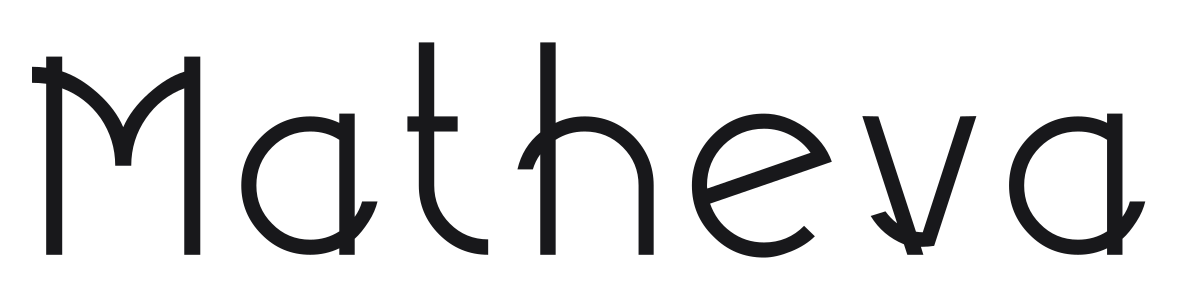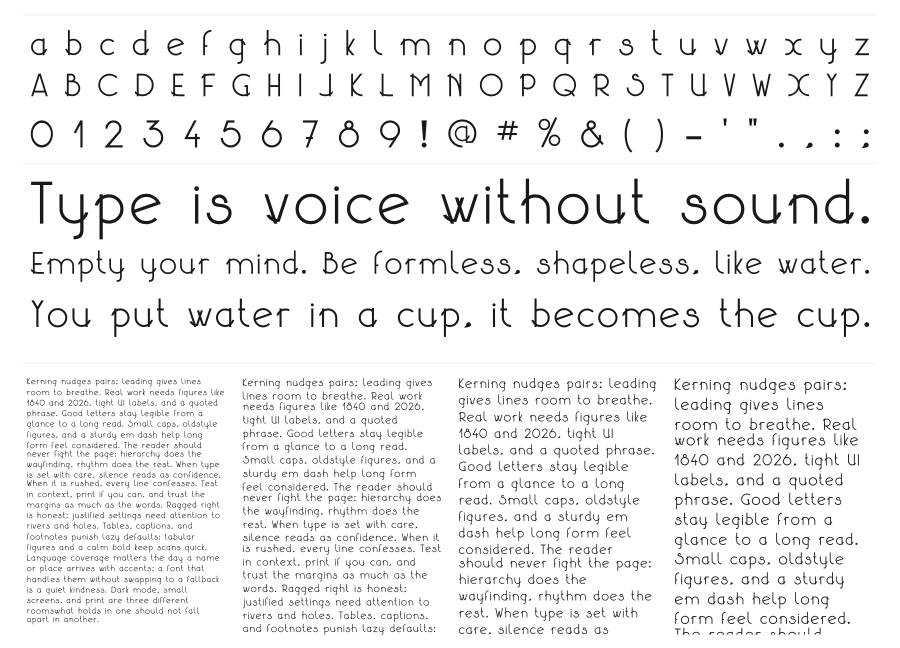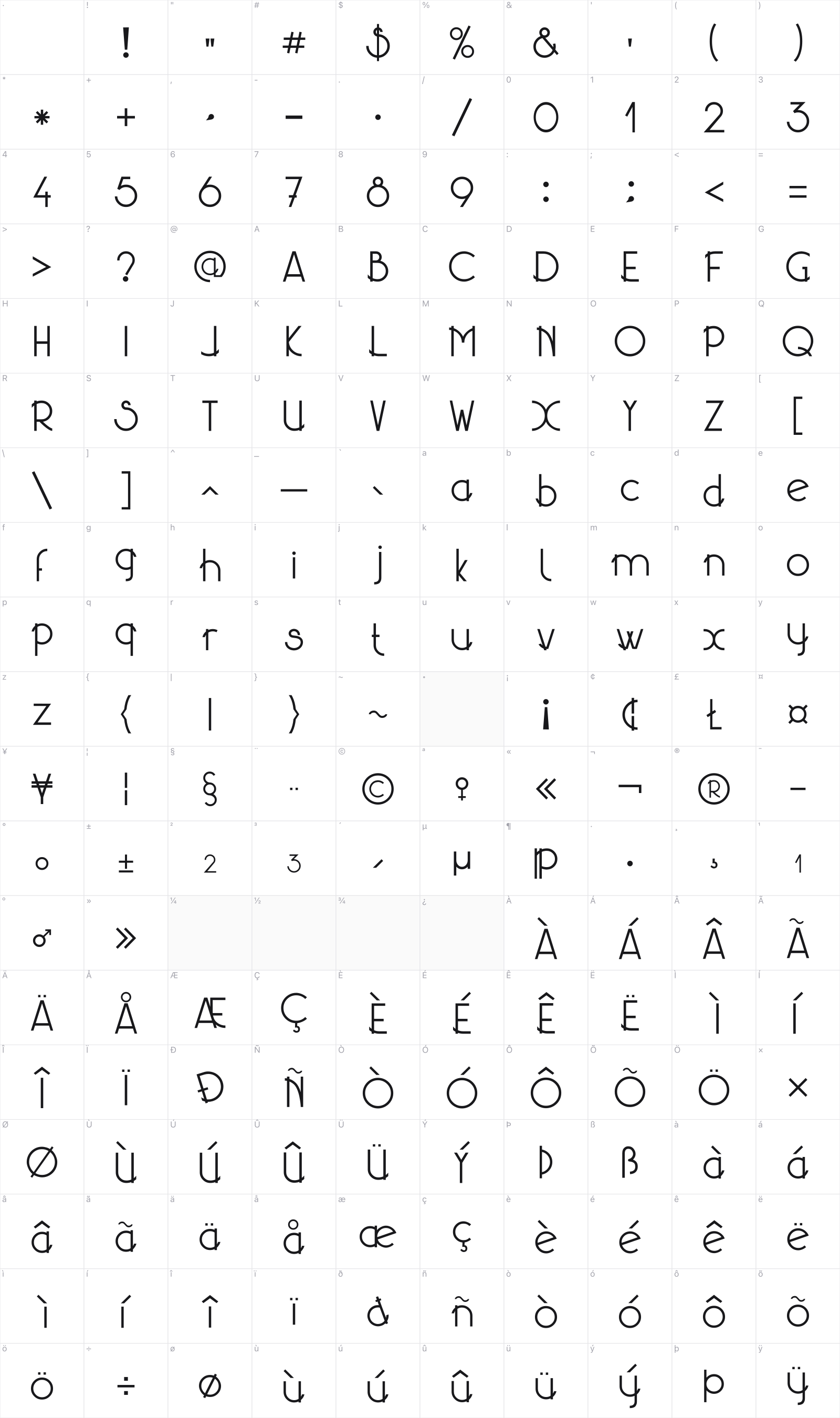
Matheva
Matheva is a light geometric sans built around near-perfect circles and a delicate monoweight stroke. Small terminal details give individual characters just enough personality to feel handmade rather than mechanical. The result sits somewhere between a clinical modernist sans and a loose studio sketch.